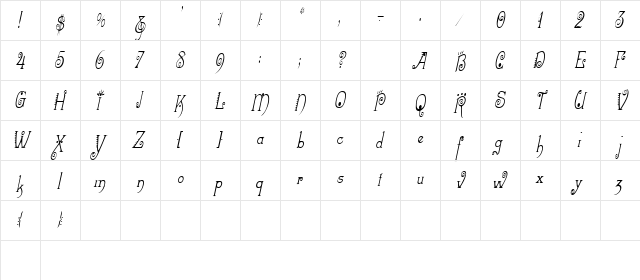
MexacaliCondensed Italic
Design Context for MexacaliCondensed Typeface
MexacaliCondensed is a composed and adaptable typeface that performs quietly and consistently across a wide range of design contexts. Its italic angle brings a sense of urgency and motion to the letterforms. Its narrow stance lets it pack a punch even in space-constrained designs.
Pro Tip: Try MexacaliCondensed for annotation and caption copy alongside an upright companion — the contrast in angle creates a dynamic but ordered typographic system.